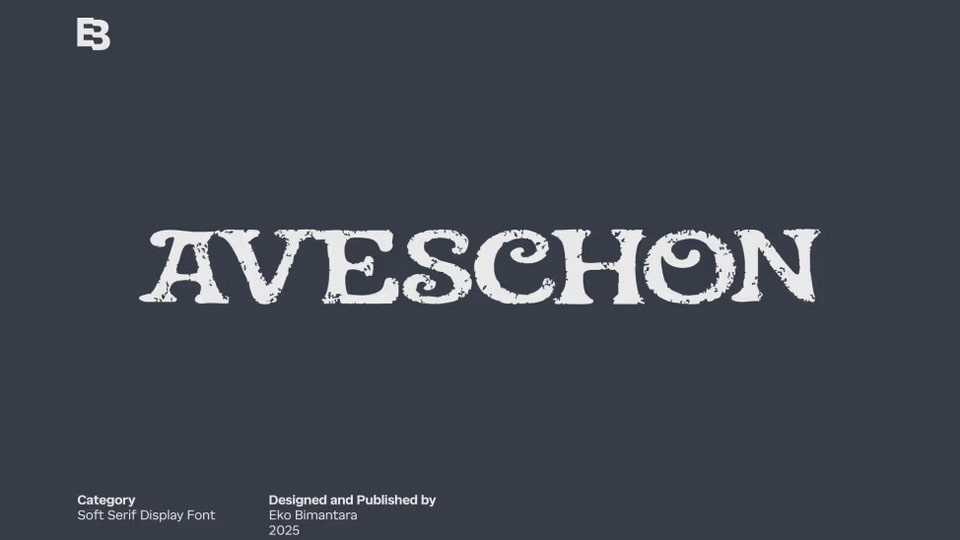
Download Aveschon font, a soft serif display typeface designed to blend rugged charm with theatrical elegance. Its bold, timeworn letterforms feature uneven contours and distressed textures.